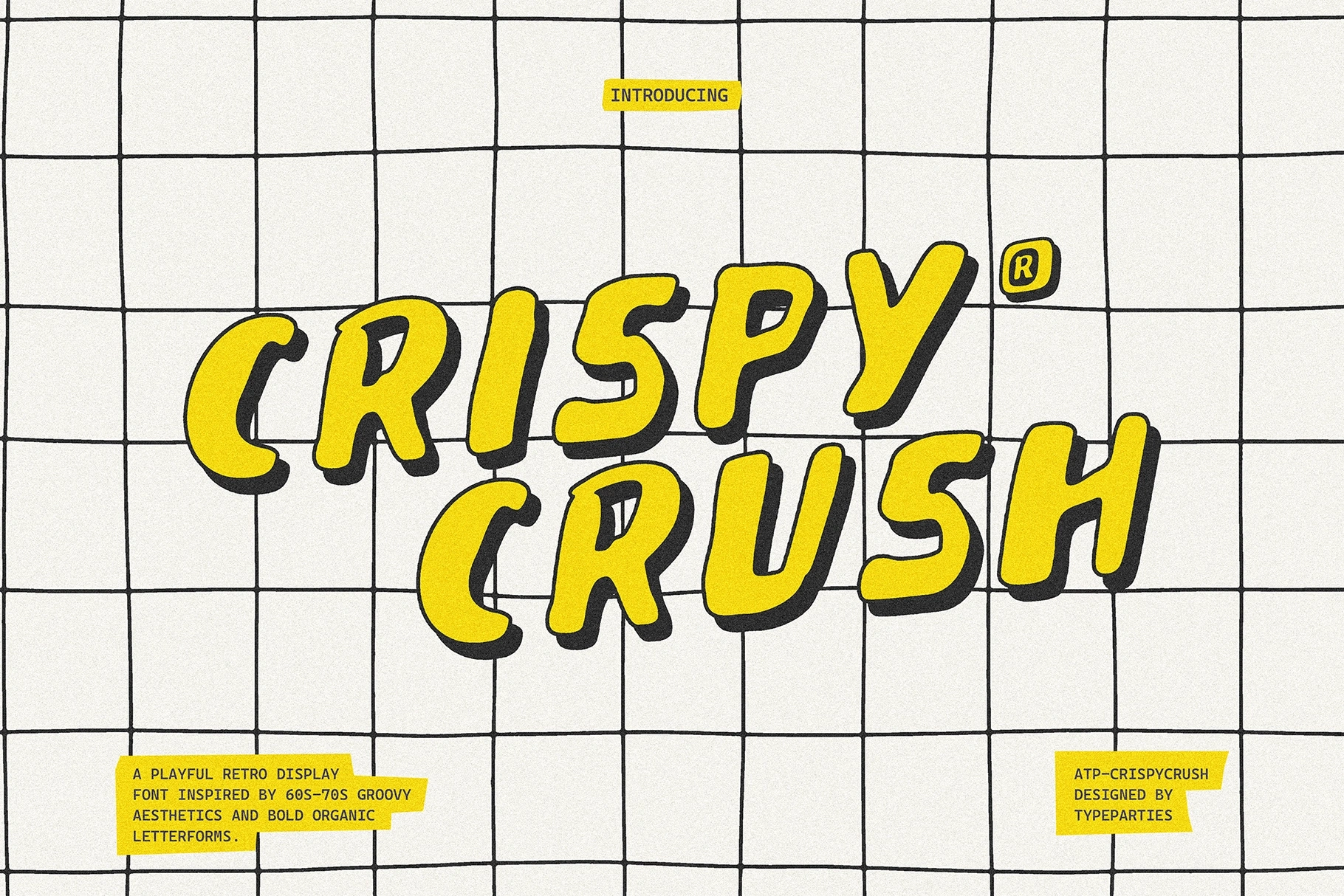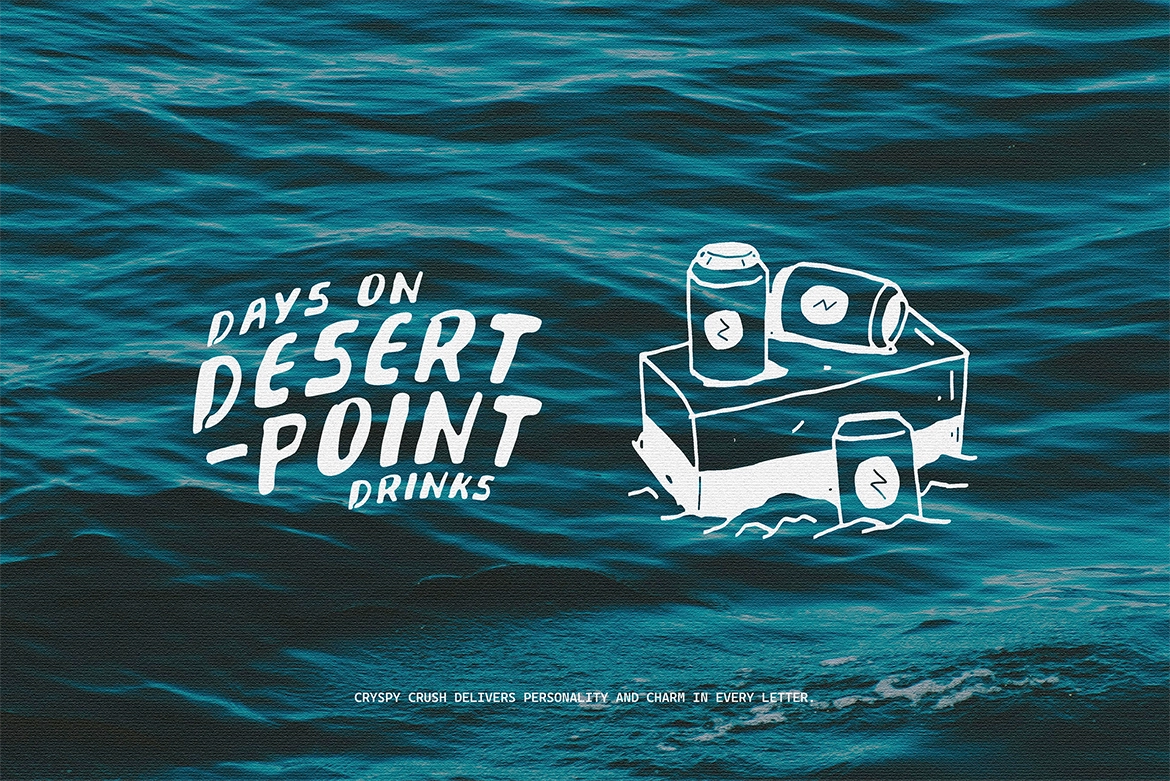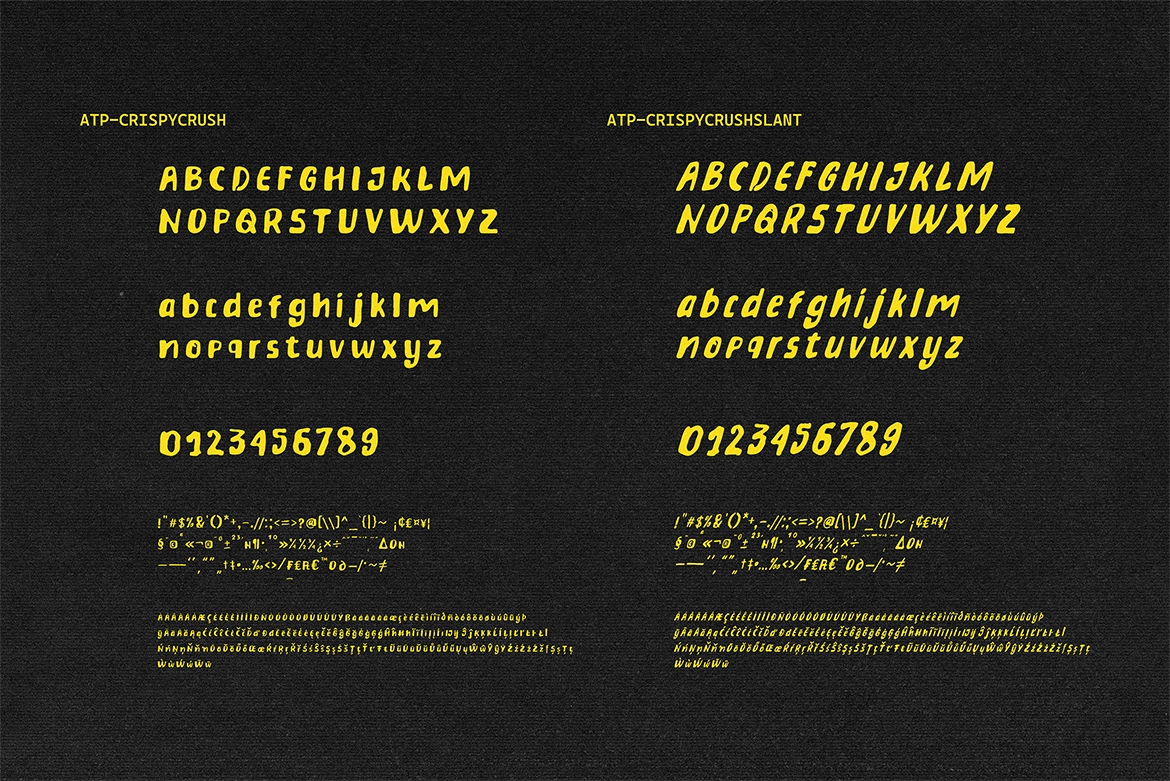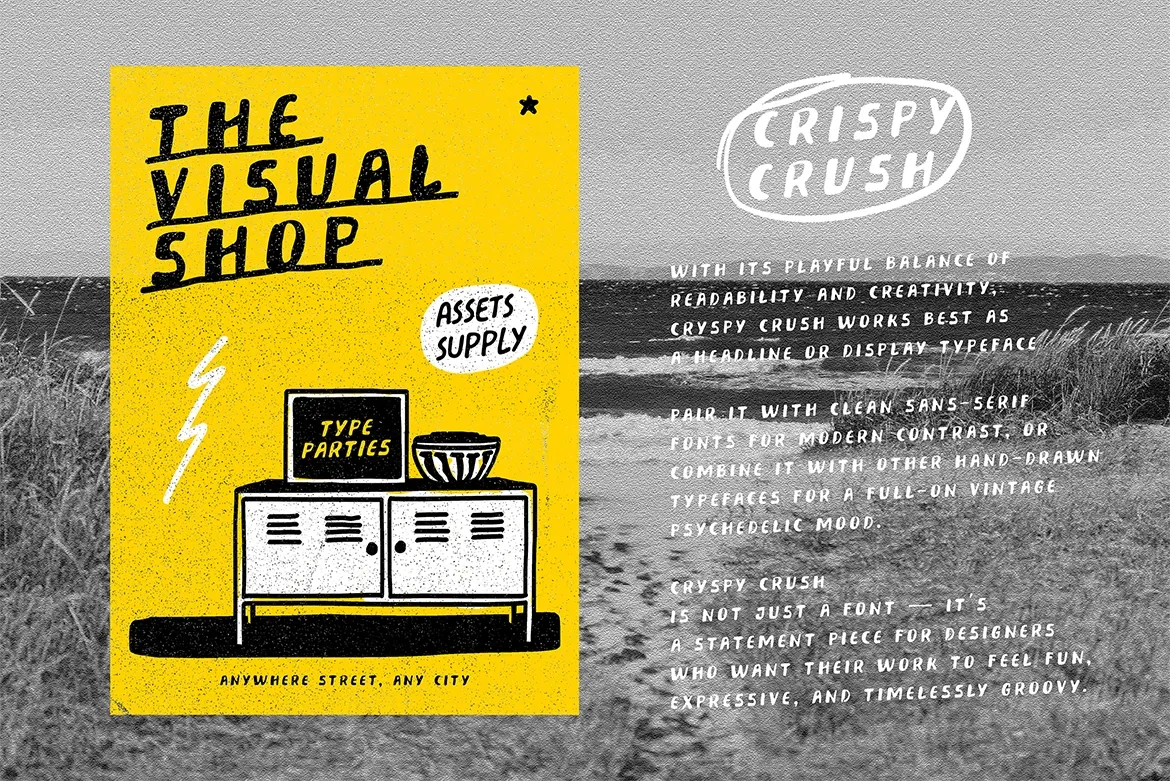
CrispyCrush - Retro Groovy Font
CrispyCrush - Retro Groovy Font is a funky and expressive display typeface that channels the carefree energy of the 60s and 70s. With its chunky, fluid letterforms and smooth, hand-drawn curves, this font brings a warm nostalgic feel to any creative project while keeping a bold and modern edge.
Each character in CrispyCrush feels dynamic and full of personality — slightly imperfect, organic, and irresistibly groovy. Inspired by vintage posters, psychedelic ads, and retro packaging, it’s the perfect choice for designers who want their work to pop with playful charm and visual rhythm.
Ideal for festival graphics, food branding, apparel design, album covers, or social media visuals, CrispyCrush font instantly adds joy, color, and a feel-good retro vibe to your designs.